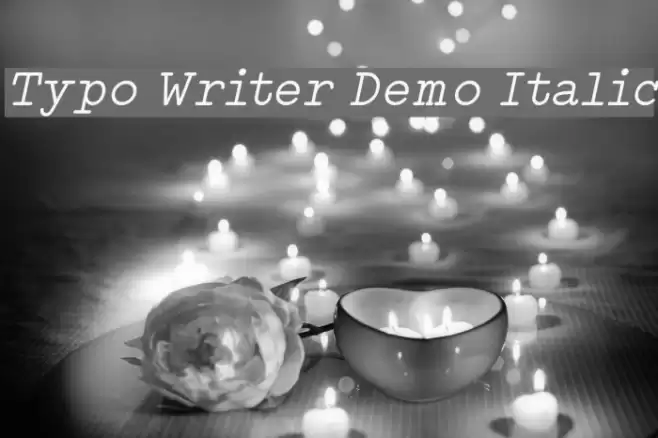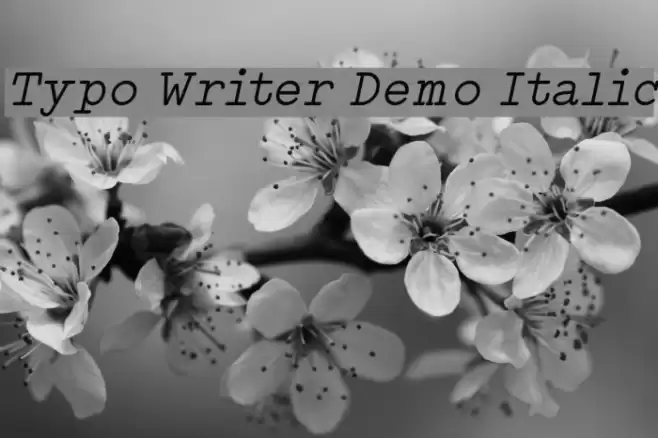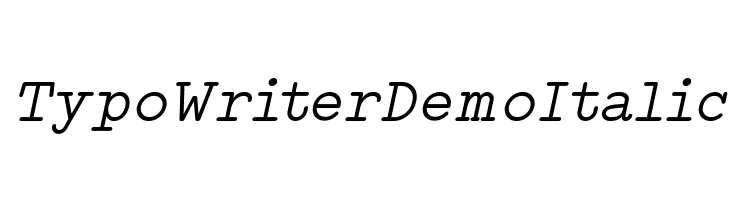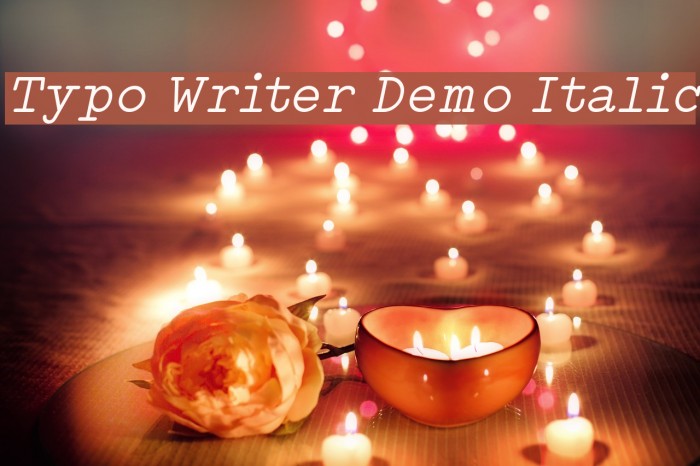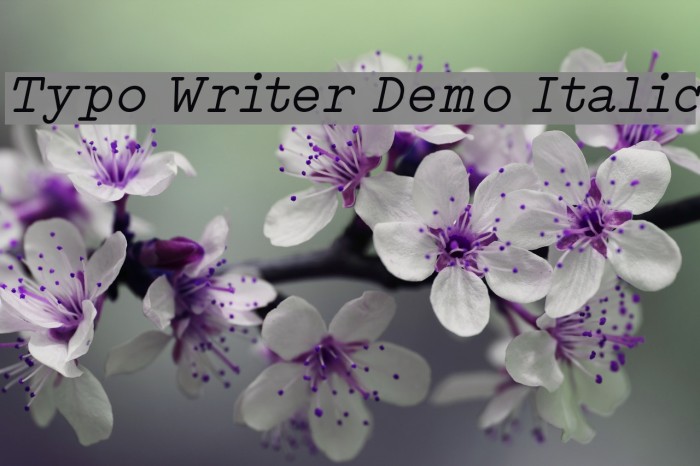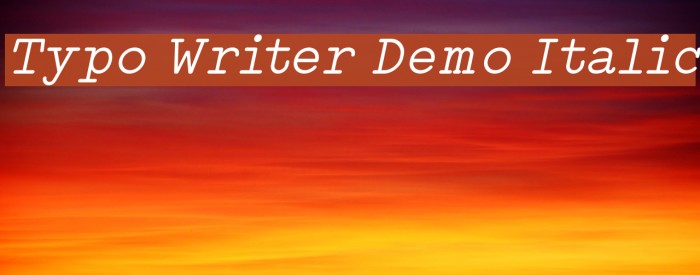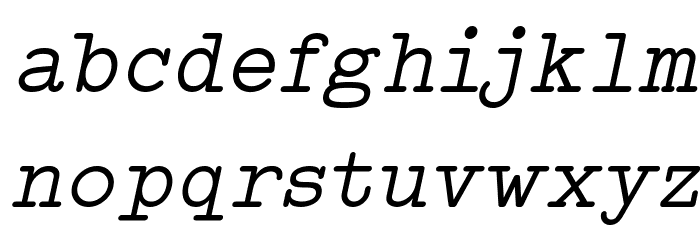
Typo Writer Demo Italic Font
Typo Writer Demo Italic Description
This font features a classic typewriter style with a modern twist, characterized by its italicized form. The letters are slightly slanted, giving it a dynamic and fluid appearance. The strokes are consistent in width, providing a uniform look across all characters. The font maintains a balance between readability and style, making it suitable for various applications. The numerals and special characters are designed to match the overall aesthetic, ensuring a cohesive look. Its vintage charm combined with a contemporary flair makes it versatile for both digital and print media.
A classic typewriter-style italic font with consistent stroke width and a modern touch from Uncategorized fonts.
- Proposed Projects: Ideal for projects that require a vintage or retro feel, such as book covers, posters, and branding materials. It can also be used for digital content that seeks to evoke nostalgia.
- Overall Style: Vintage